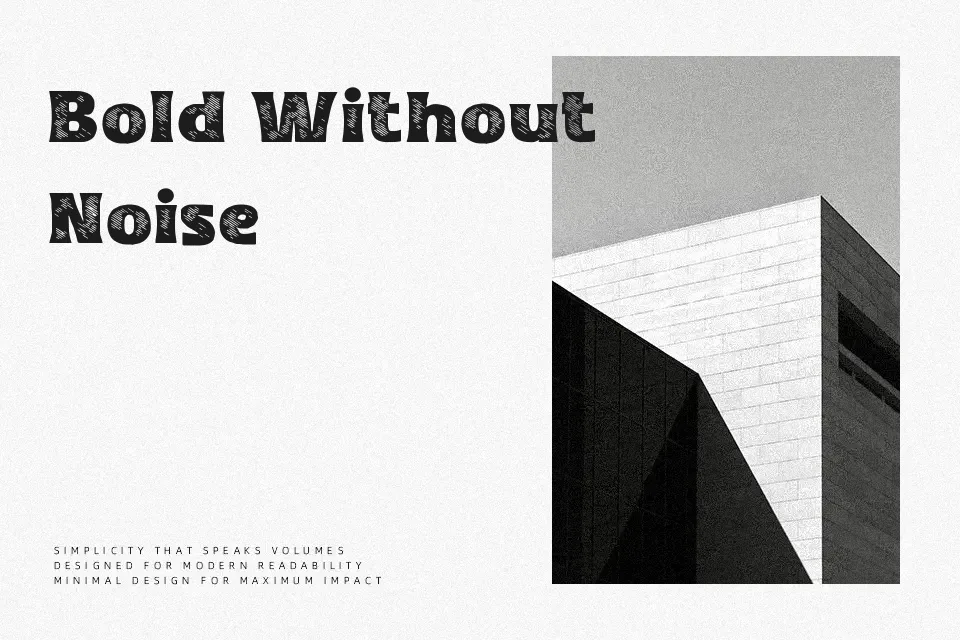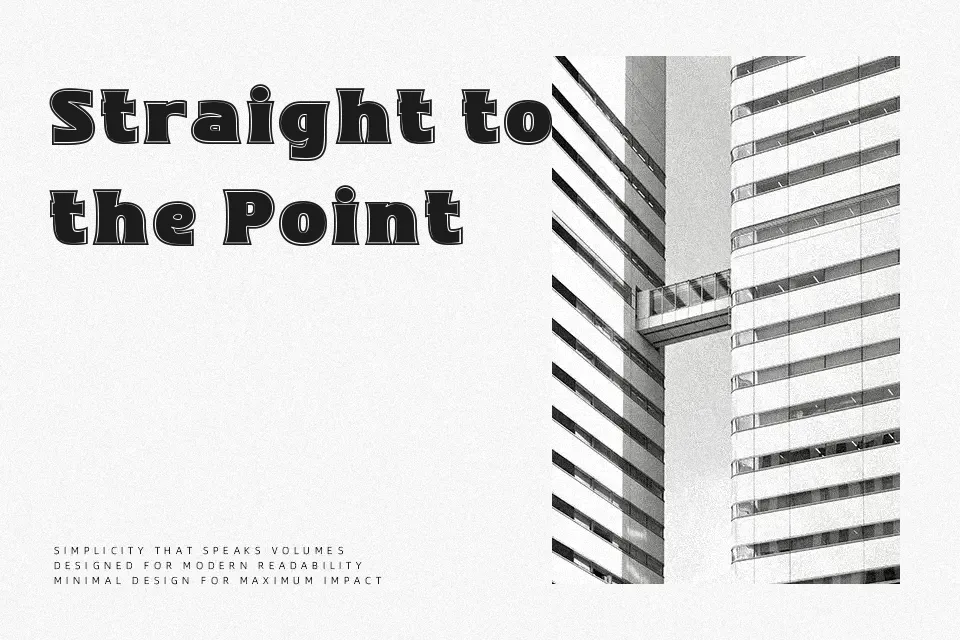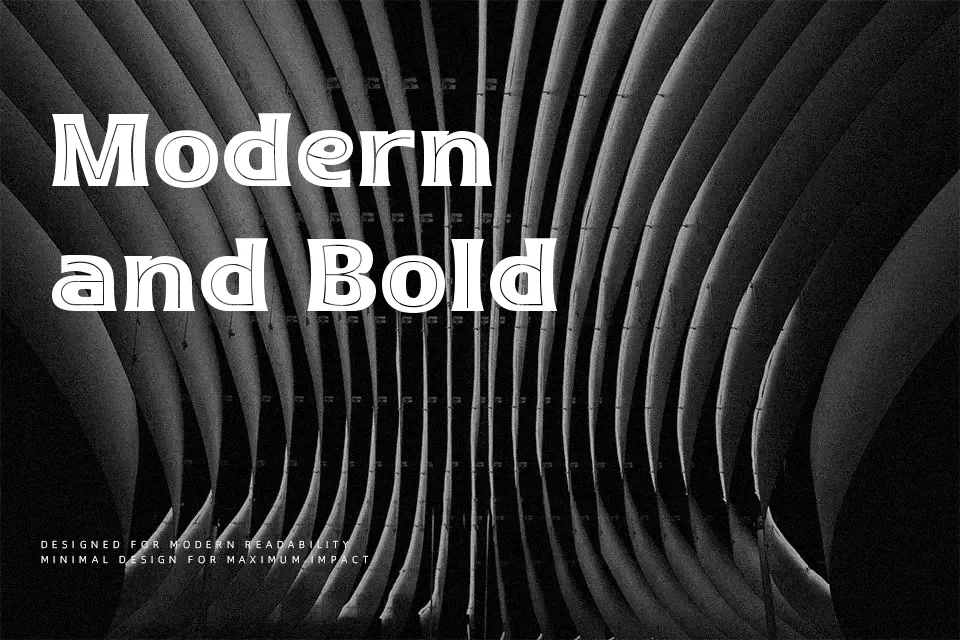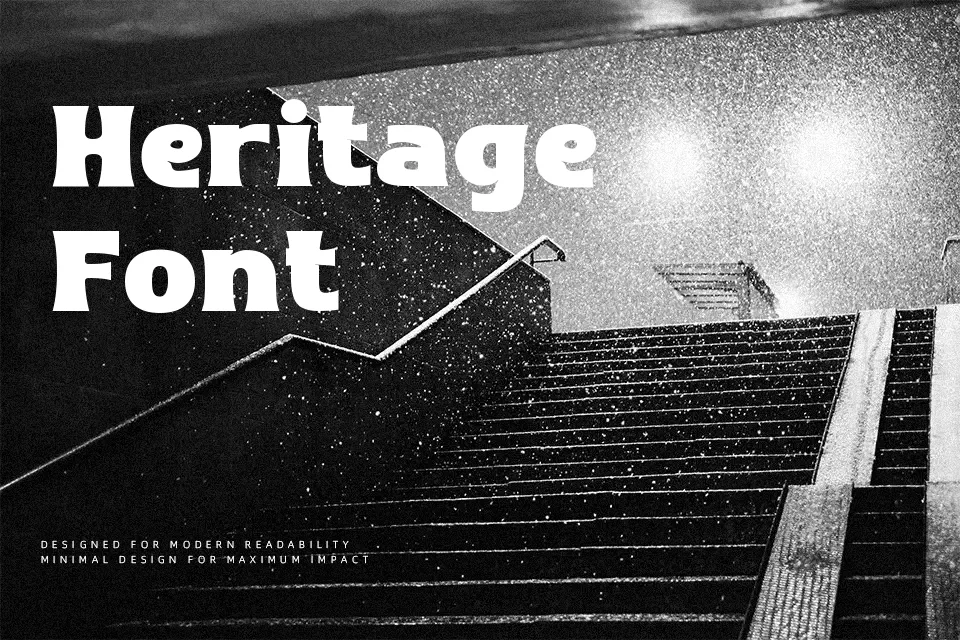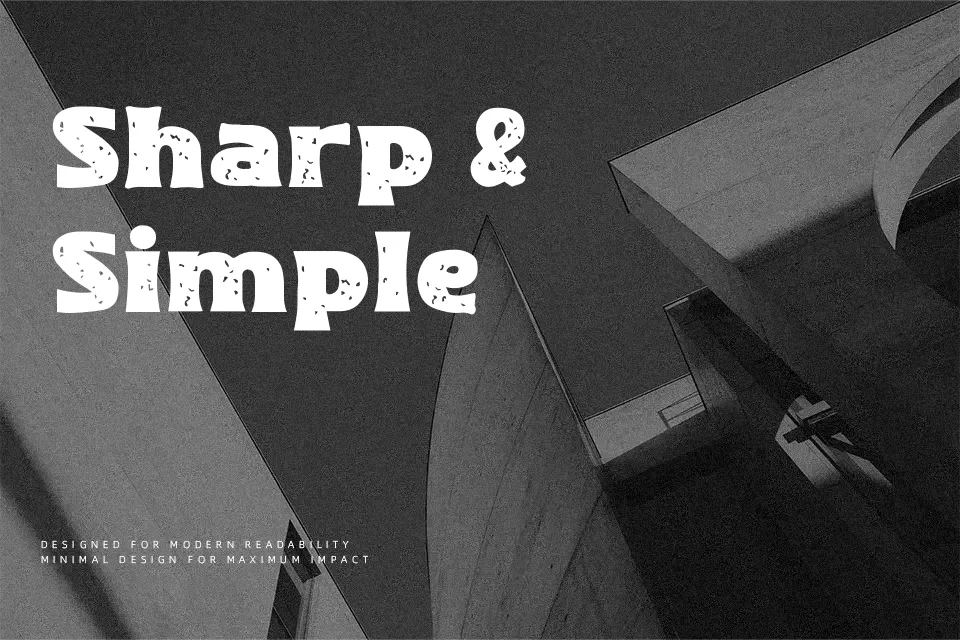
Stepon Font
Stepon Font is a display typeface characterized by heavy geometric structures, uniform strokes, and distinct block-like letterforms. Wide horizontal proportions and tight character spacing give the design an assertive presence suited for merchandise graphics, gaming logos, and bold promotional headlines. The uppercase characters maintain consistent height and sharp outer terminals, providing solid visual stability across compact display settings. However, the dense weight and compact counters make the font less suitable for continuous body text or small captions where intricate forms can blur together. When set in prominent titles, the typeface delivers dependable clarity and immediate visual impact.
Best For: movie title sequences,gaming logo designs,apparel graphics,event headline banners
Not Ideal For: long body copy,small caption text,dense editorial paragraphs,mobile interface labels
Perfect for gaming, headline, and logo, with a bold and display style.